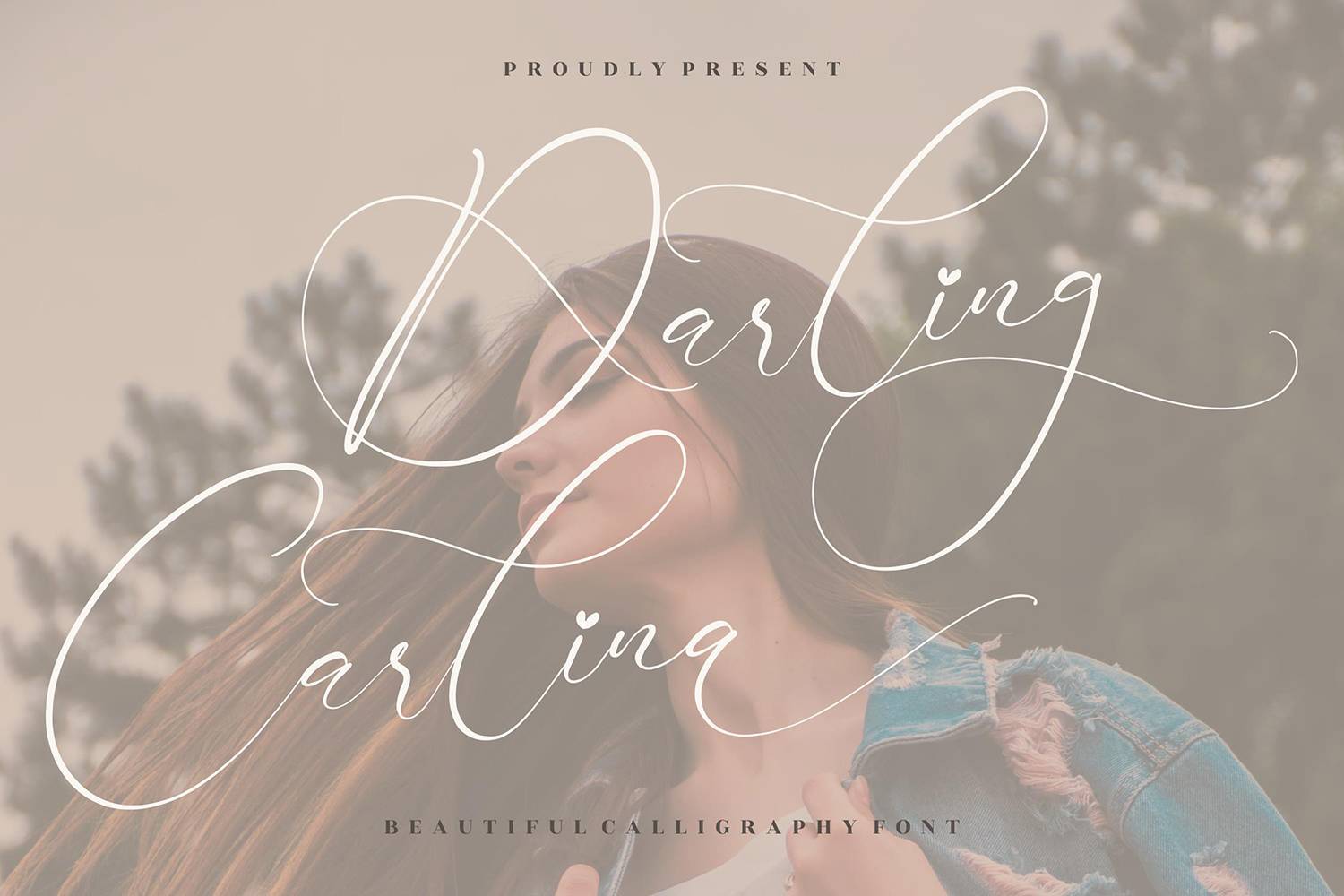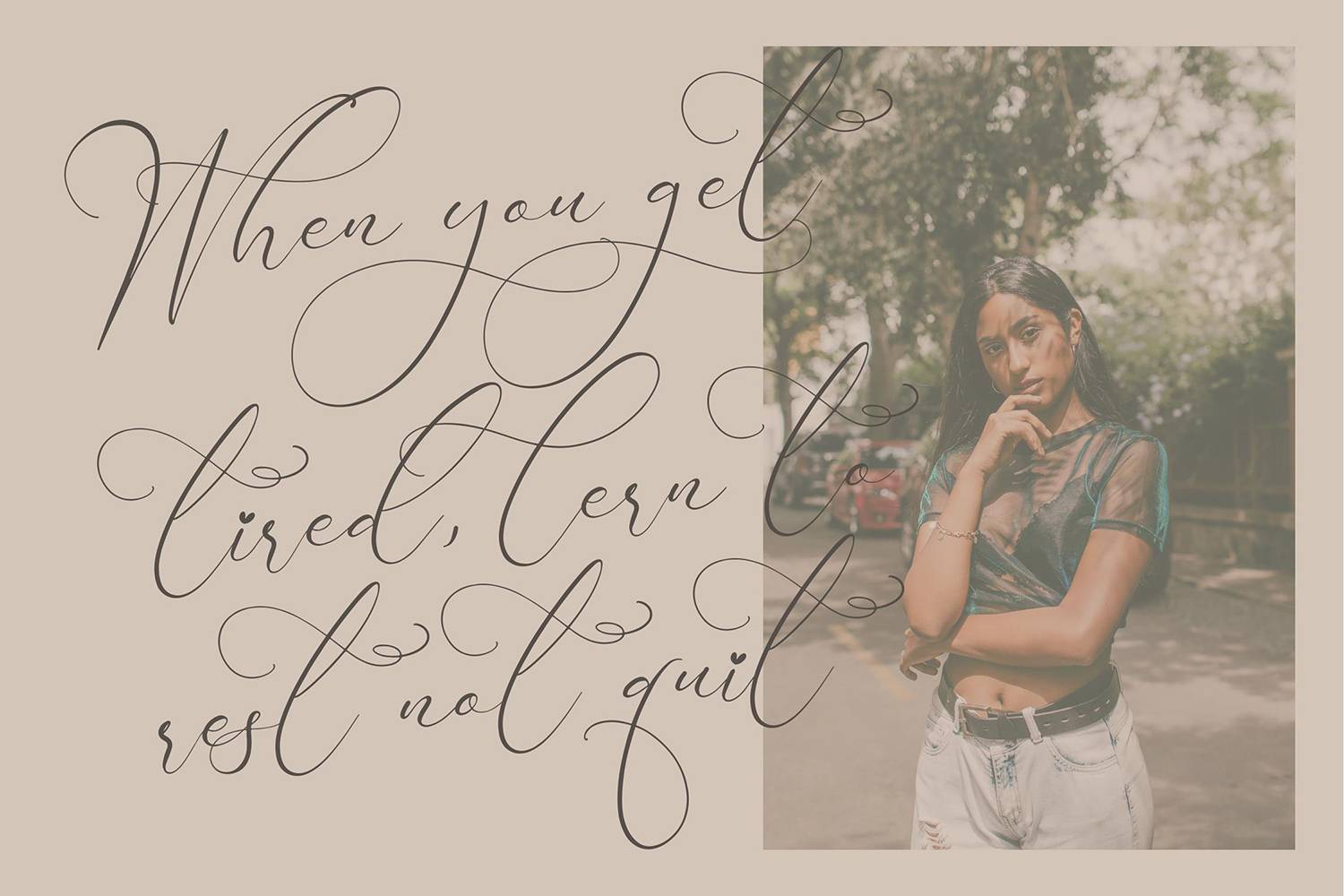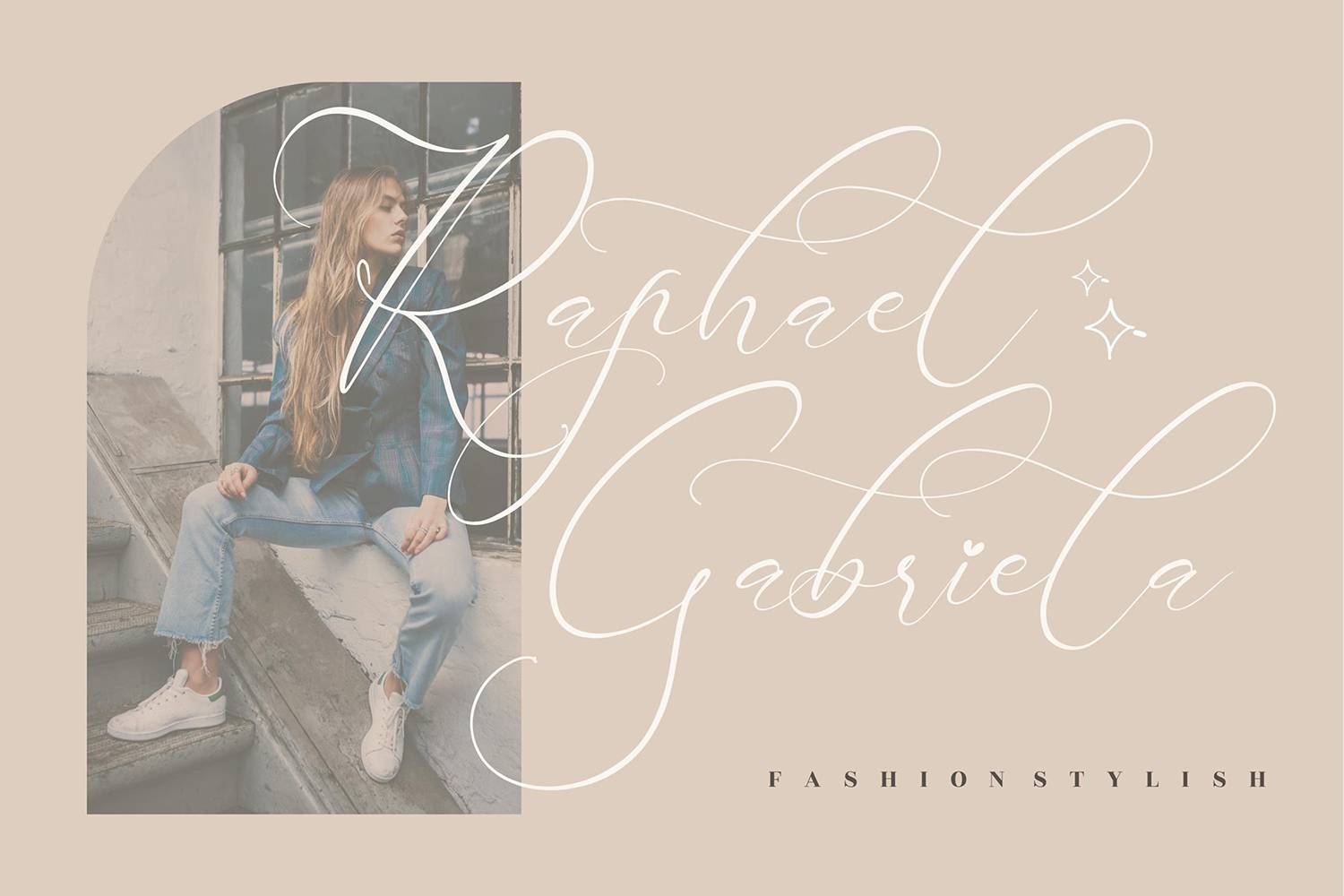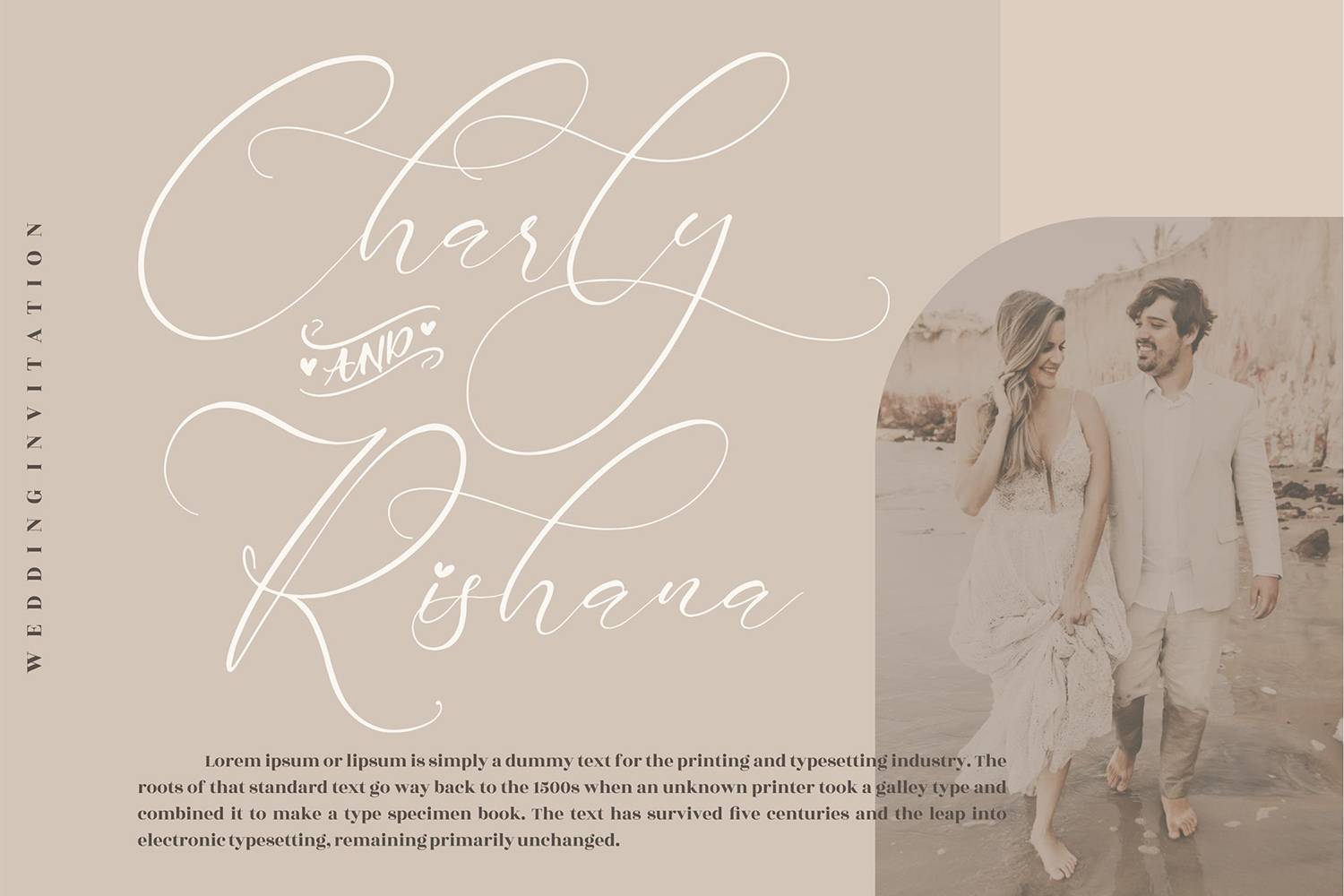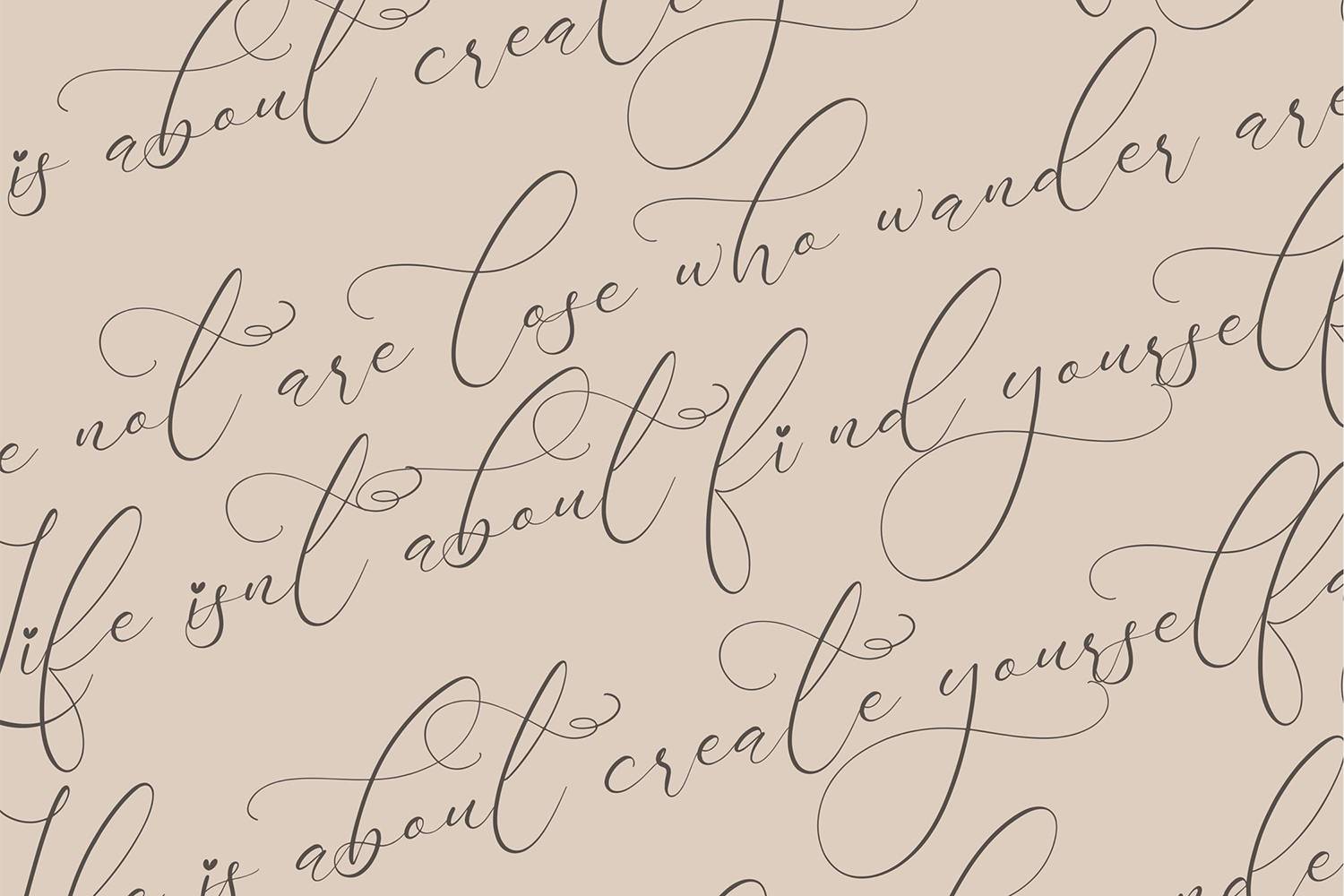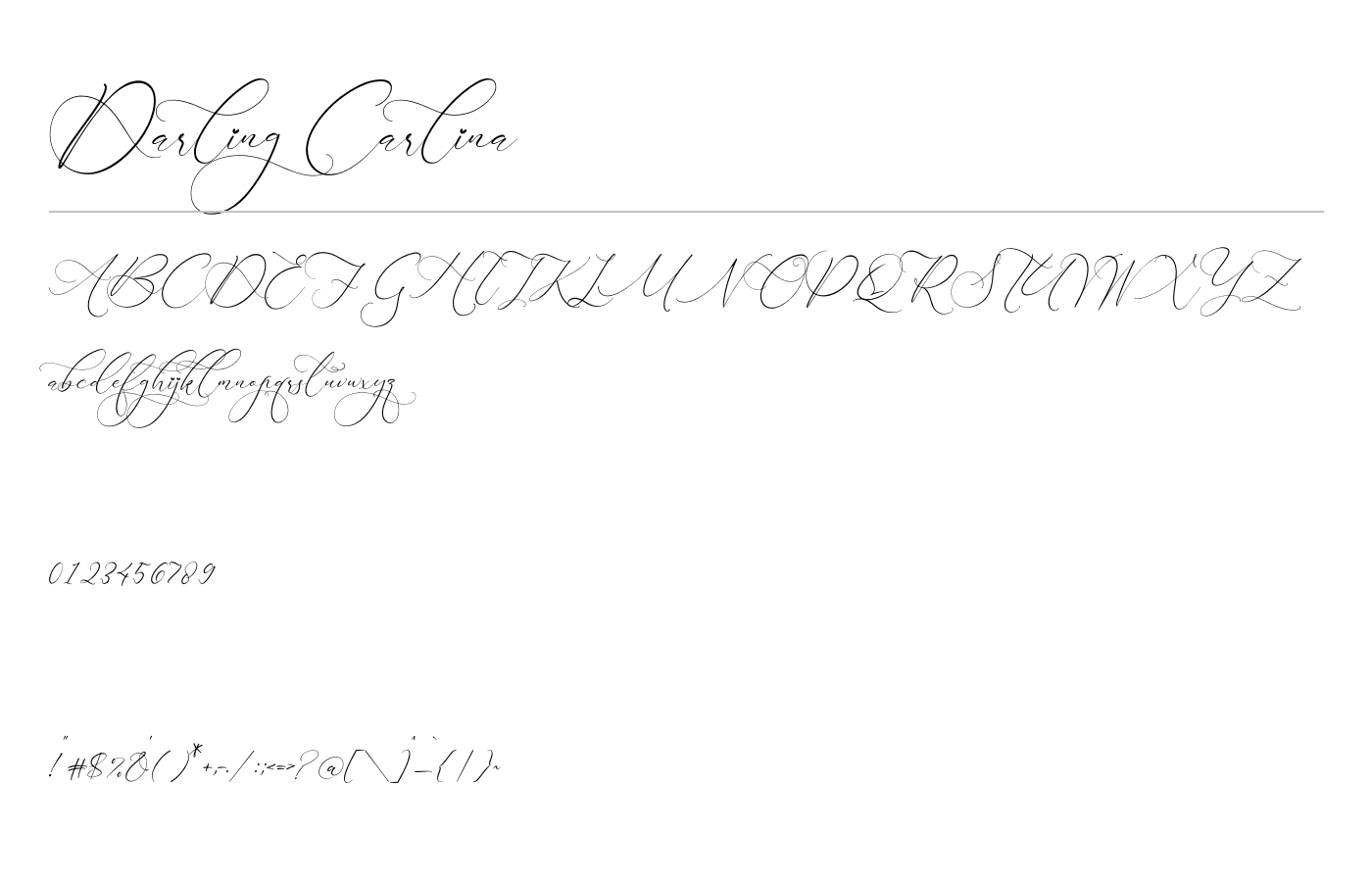
Darling Carlina is a delicate script font characterized by its elegant, flowing lines and intricate swashes that evoke a refined, romantic feel. With its thin strokes and graceful letterforms, it is perfect for sophisticated branding, wedding invitations, and any design that aims to convey luxury and femininity. This font shines in upscale, decorative contexts where a touch of classic, hand-lettered charm is desired.
Darling Carlina Font
About Darling Carlina Font